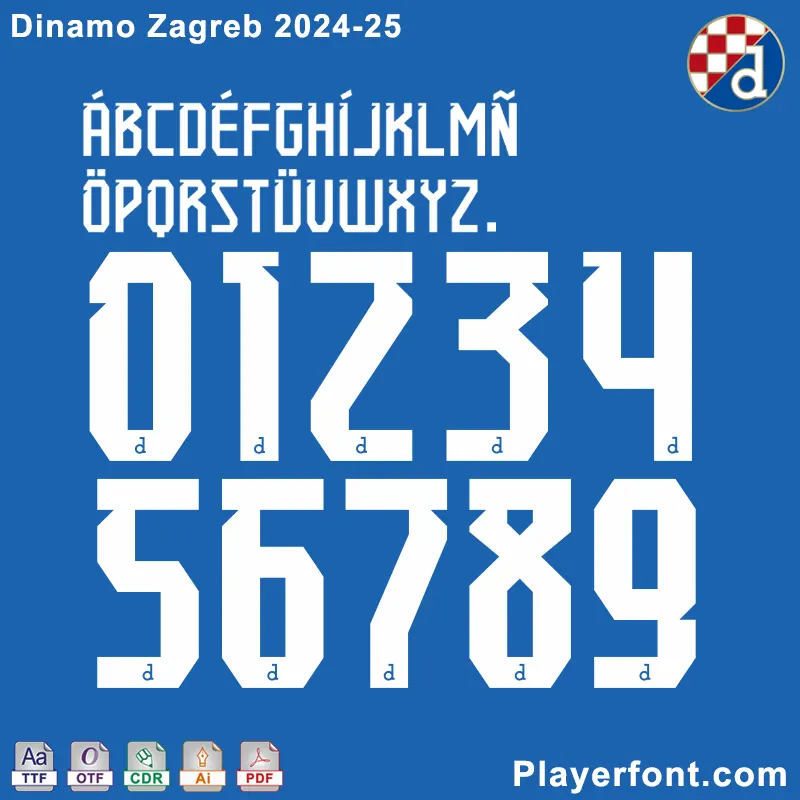
The Dinamo Zagreb 2024-2025 Font is based on the official name set, with the Dinamo Zagreb club logo at the bottom of the number. Can be used custom Dinamo Zagreb 24-25 jersey name set.